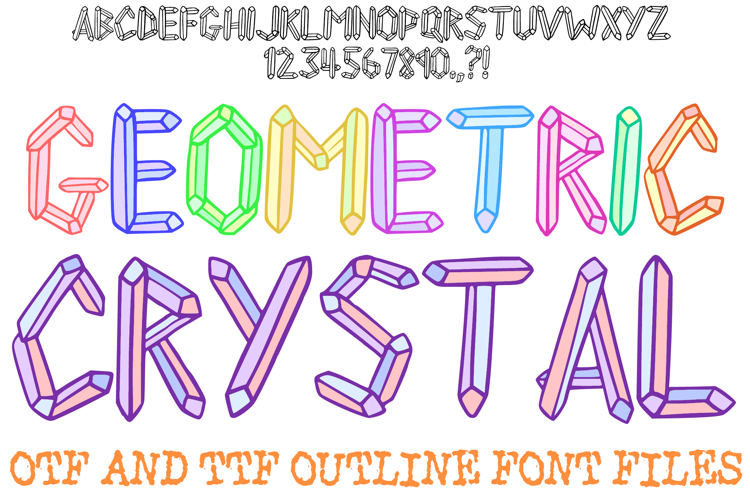
Geometric Crystal Font Celestial Typography Lettering ABC
Add a touch of mystical brilliance to your designs with the Geometric Crystal Font! This unique display alphabet is meticulously hand-drawn, with each character constructed from faceted, three-dimensional gemstone shapes that resemble natural quartz points. It is the perfect creative choice for celestial branding, jewelry shop logos, spiritual stationery, or whimsical digital scrapbooking.
The font features a clean, angular aesthetic that balances modern geometry with an organic, "earth-grown" feel. Whether you are designing for a wellness blog, creating "witchy" aesthetic stickers, or building a brand identity for a boutique crystal shop, this font provides a sharp, sparkling foundation for your text.
Faceted Gemstone Texture: Every letter is built from individual crystal-like segments, giving it a 3D, light-refracting look.
Hand-Drawn Precision: Captures the charm of a sketchbook doodle with the clean lines of geometric art.
Versatile Aesthetic: Transitions perfectly between mystical/spiritual themes and modern, industrial geometric designs.